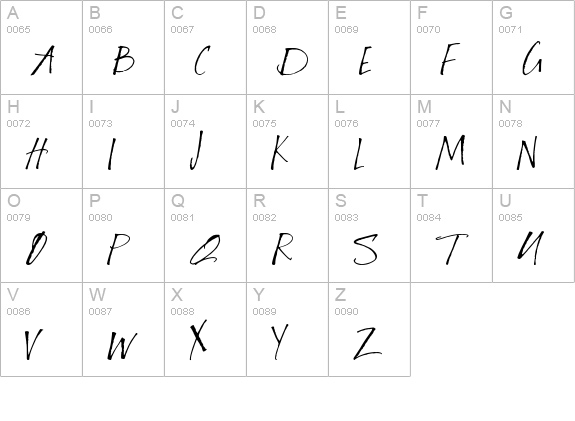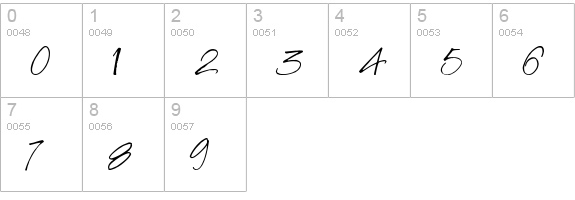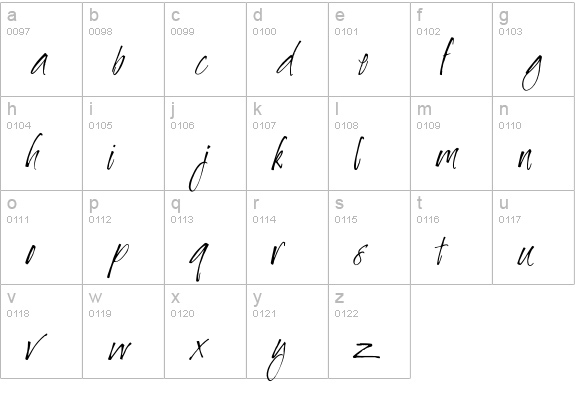
Introducing the charming and playful Baby Bowser font, a delightful typeface that exudes a sense of innocence and wonder. With its rounded edges and whimsical curves, this font captures the essence of childhood, making it perfect for a variety of creative projects. Whether you're designing invitations for a baby shower, creating adorable nursery decor, or crafting personalized greeting cards, Baby Bowser font adds a touch of sweetness and joy to any project. Its versatility allows it to be used in both digital and print media, bringing your designs to life with its endearing character. One of the best parts about Baby Bowser font is that it is available for free download at FontsMarket.com. This means that you can easily access this delightful font and start incorporating it into your design projects without any cost. With just a few clicks, you can add a touch of whimsy and charm to your creations. The Baby Bowser font offers a wide range of characters, including uppercase and lowercase letters, numerals, punctuation marks, and special symbols. Its legibility and readability ensure that your messages are conveyed clearly and effortlessly, while its unique personality adds a touch of originality to your work. So, whether you're a professional graphic designer or a DIY enthusiast, Baby Bowser font is the perfect choice for adding a touch of childlike wonder to your projects. Download it for free at FontsMarket.com and let your creativity soar with this adorable and delightful font.